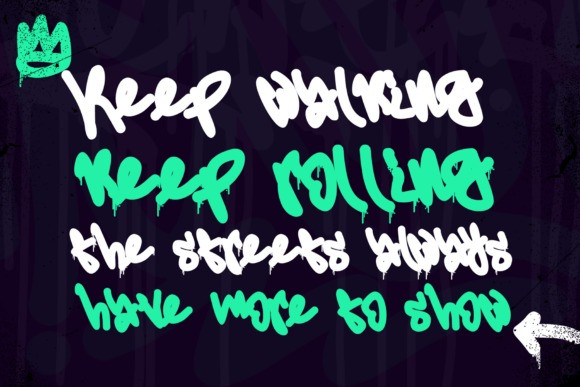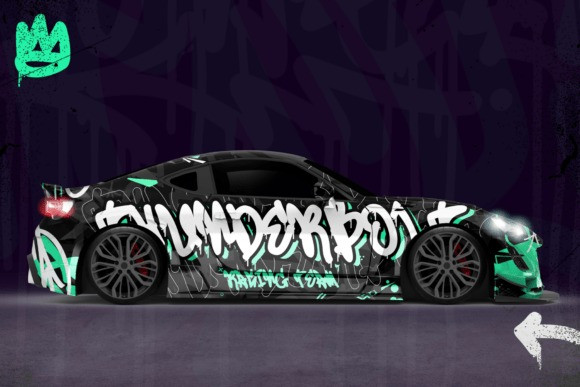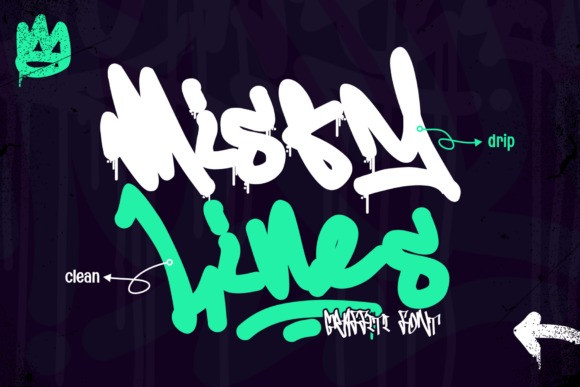
Misty Lines Font
Misty Lines Font an audacious, avant-garde font mirroring the indomitable spirit of street graffiti. The monoline font breathes life into designs, its audacious swashes enhancing its raw and unrestricted charm. Misty Lines is masterfully crafted with fluid strokes to convey a graffiti-esque, ink dripping effect that resonates with the unfiltered energy of street culture. It brings an edgy yet sophisticated underline in the realm of streetwear branding, hip-hop posters, album covers, and skate designs.
The potential of Misty Lines extends to eye-catching stickers, large-scale murals, and other urban-themed ventures, blessing your designs with a rebellious and artistic flavor. The effortless blend of its smooth drips and swashes stands out, raising the bar for bold, energetic visuals that echo the passion and creativity of urban street art